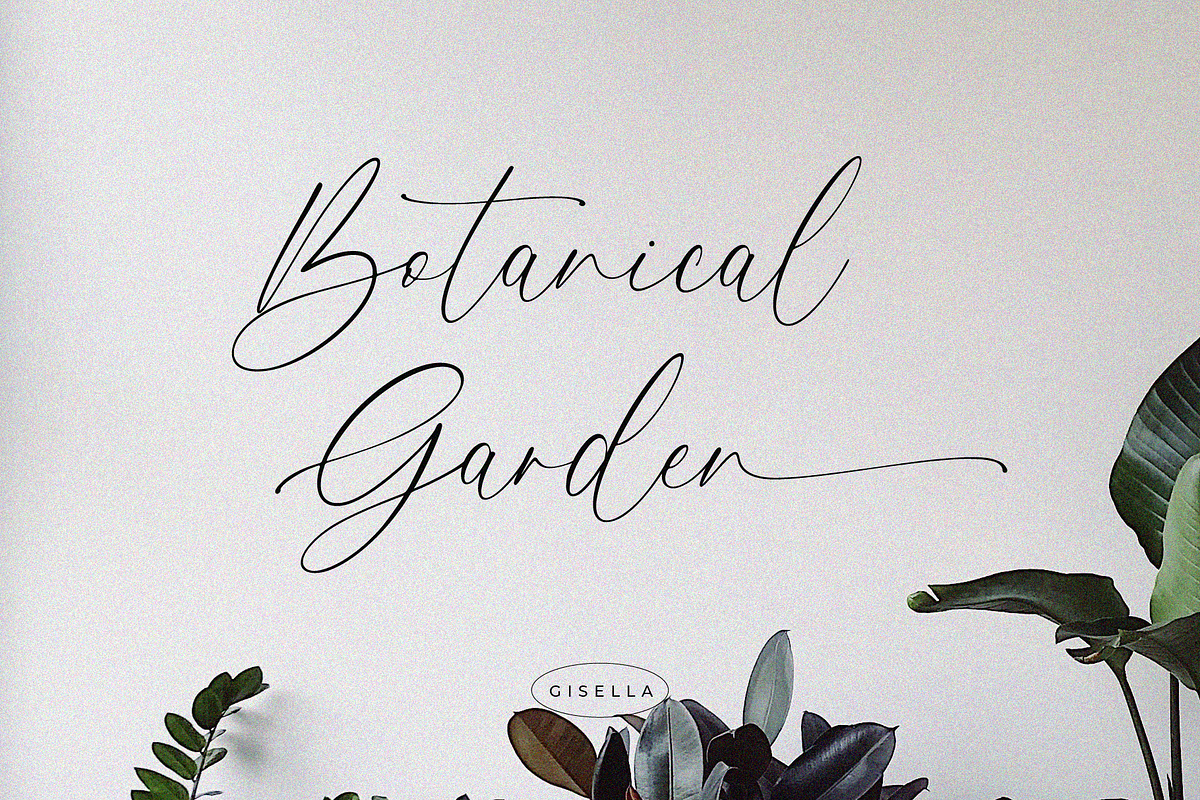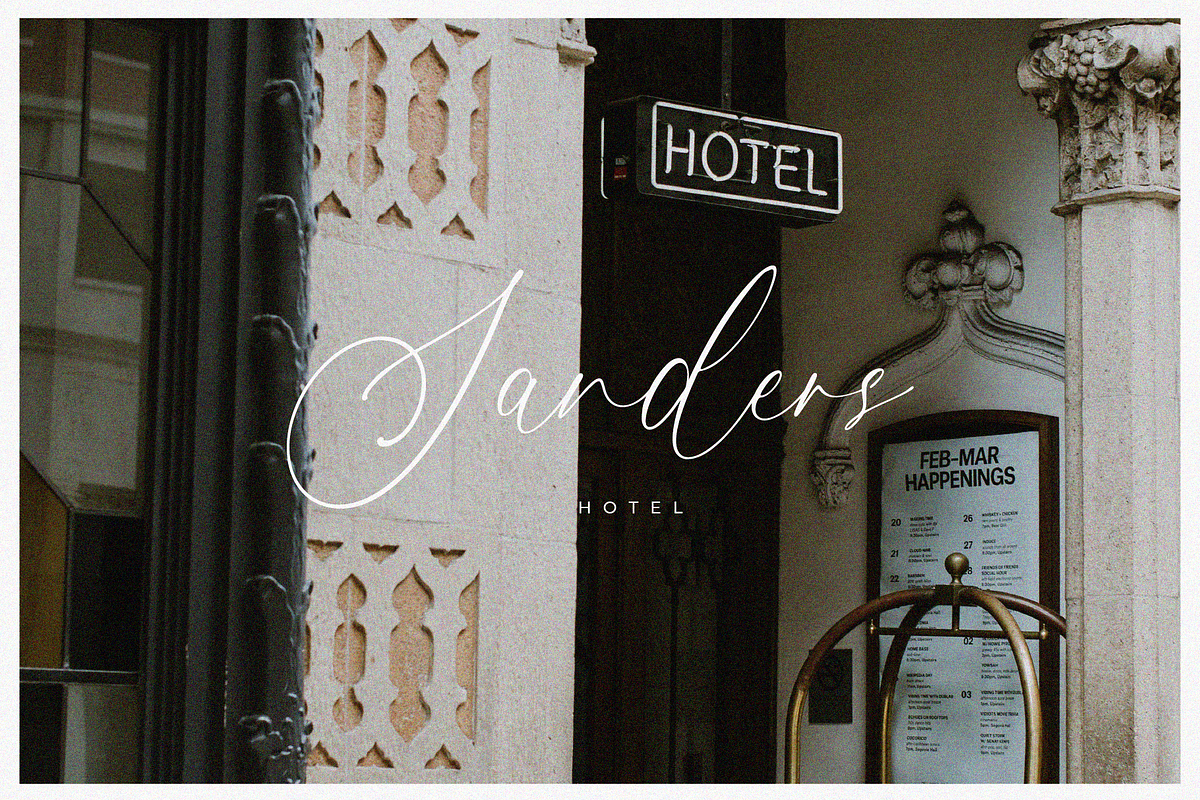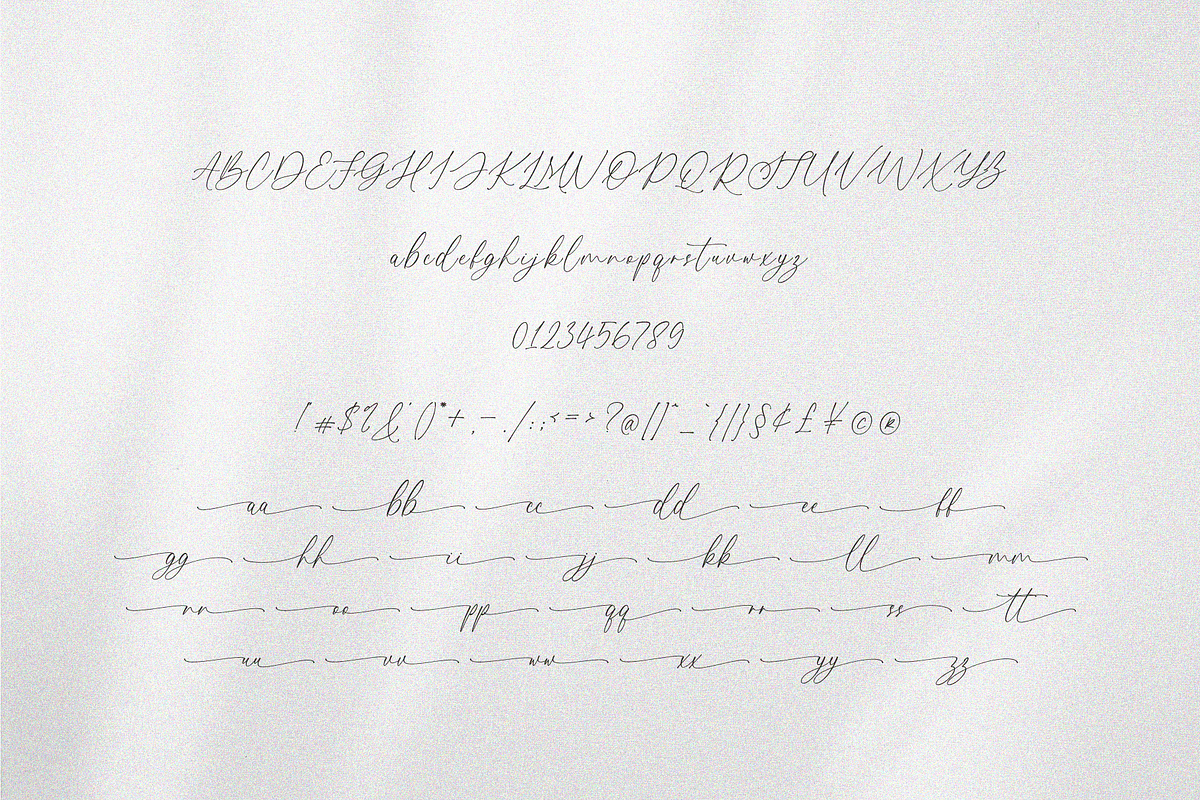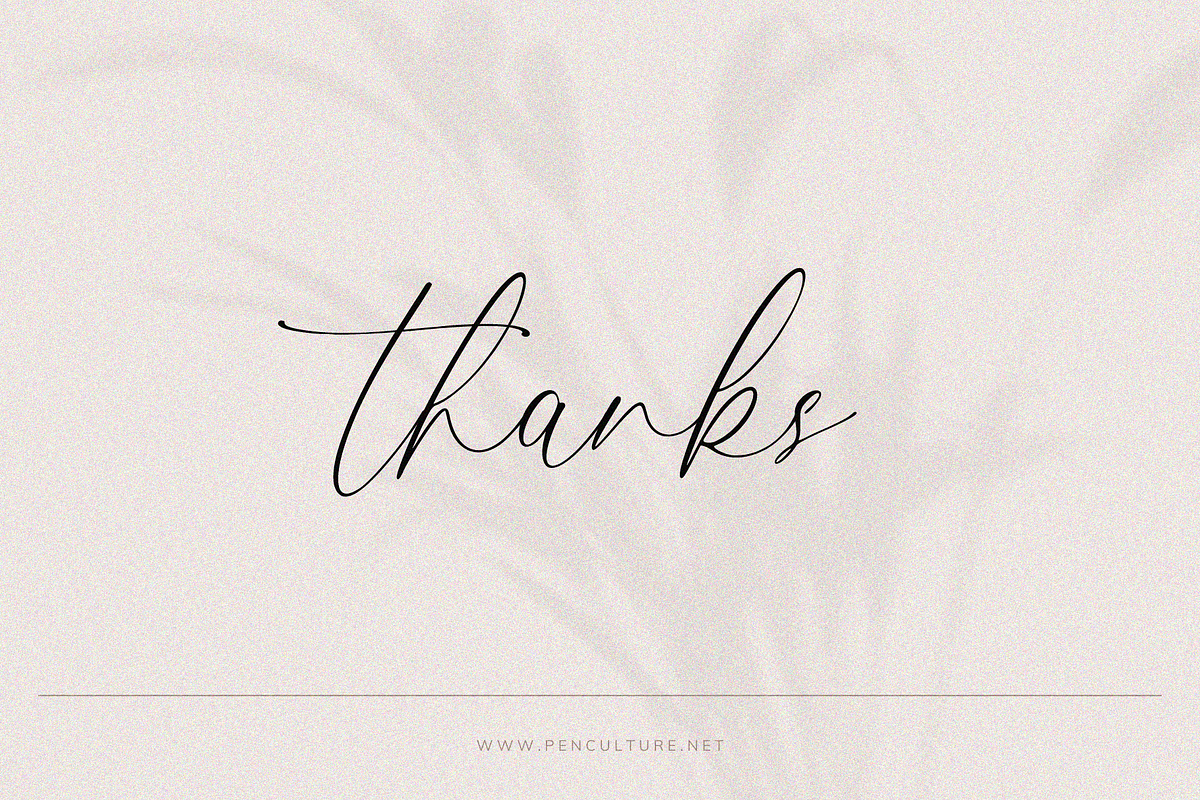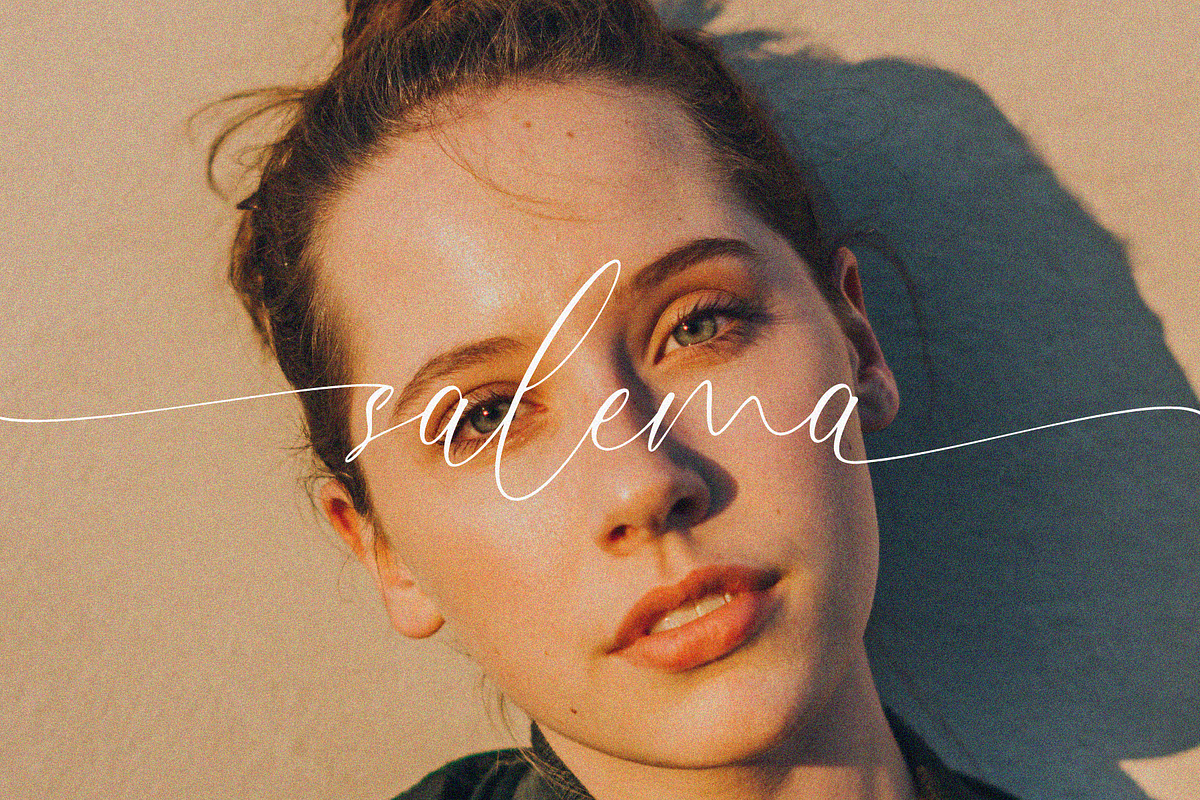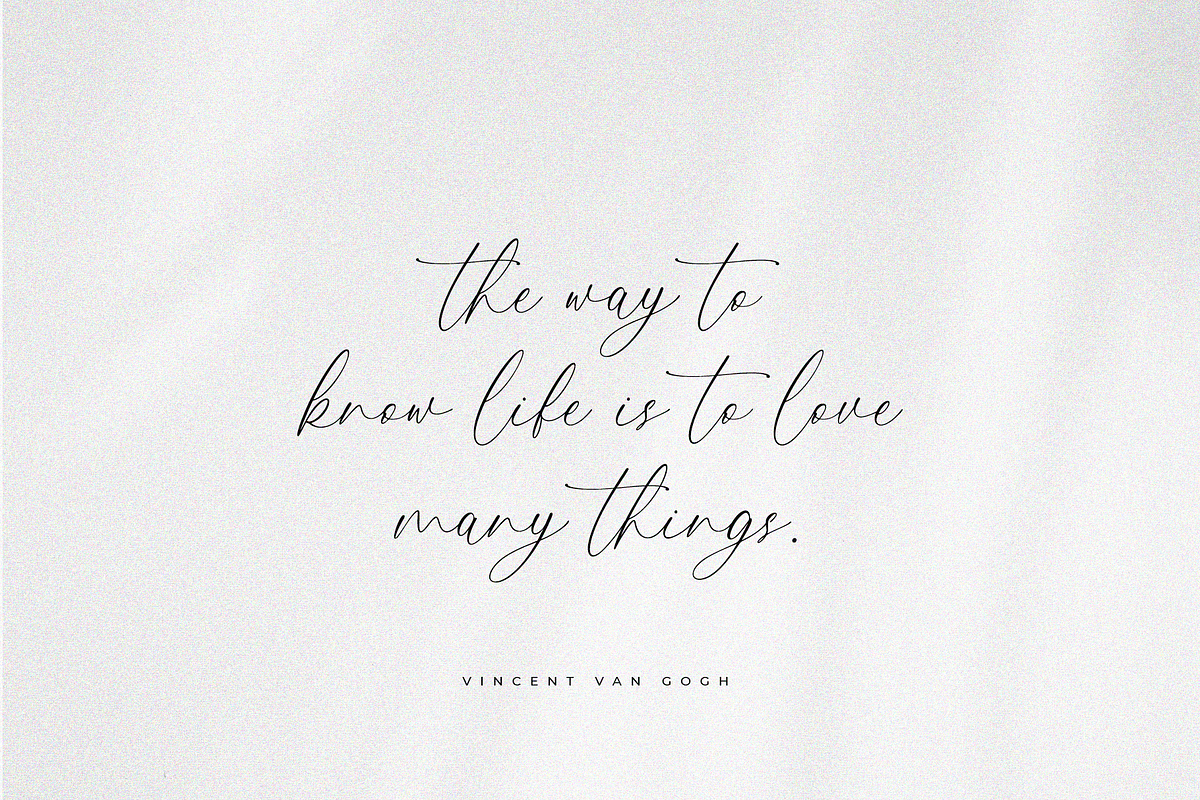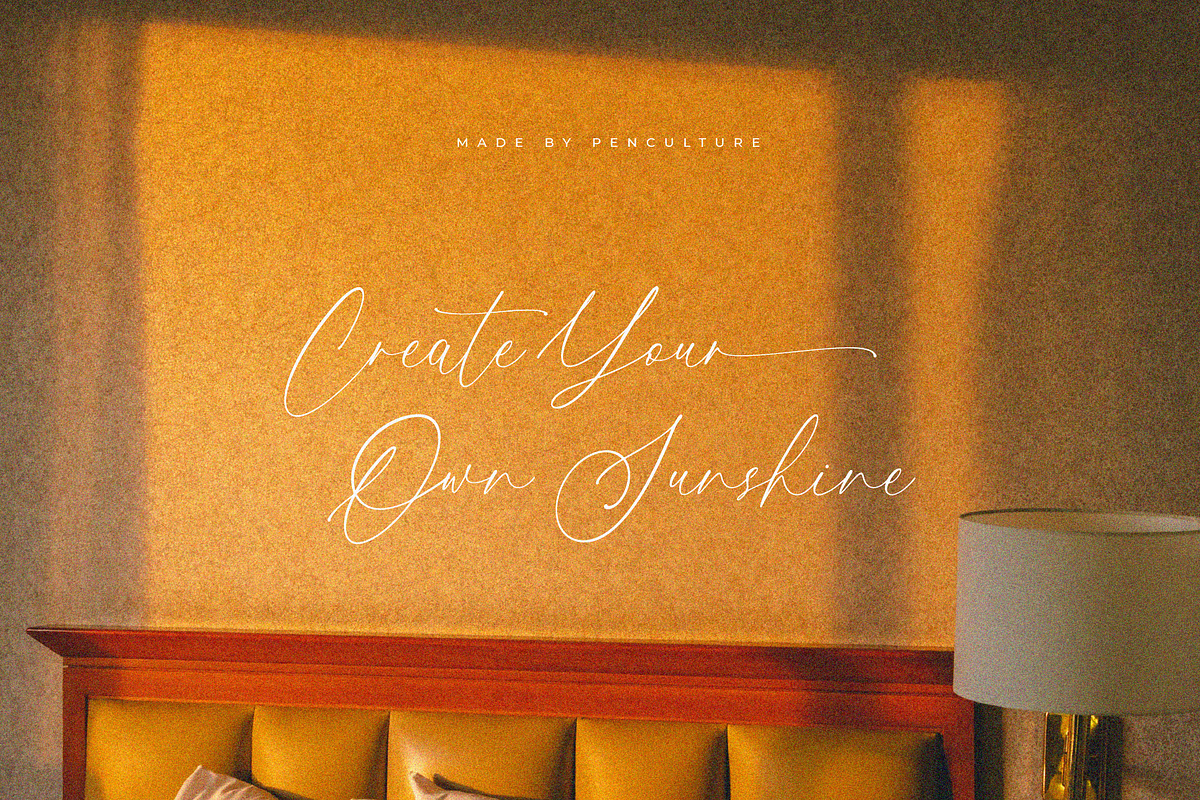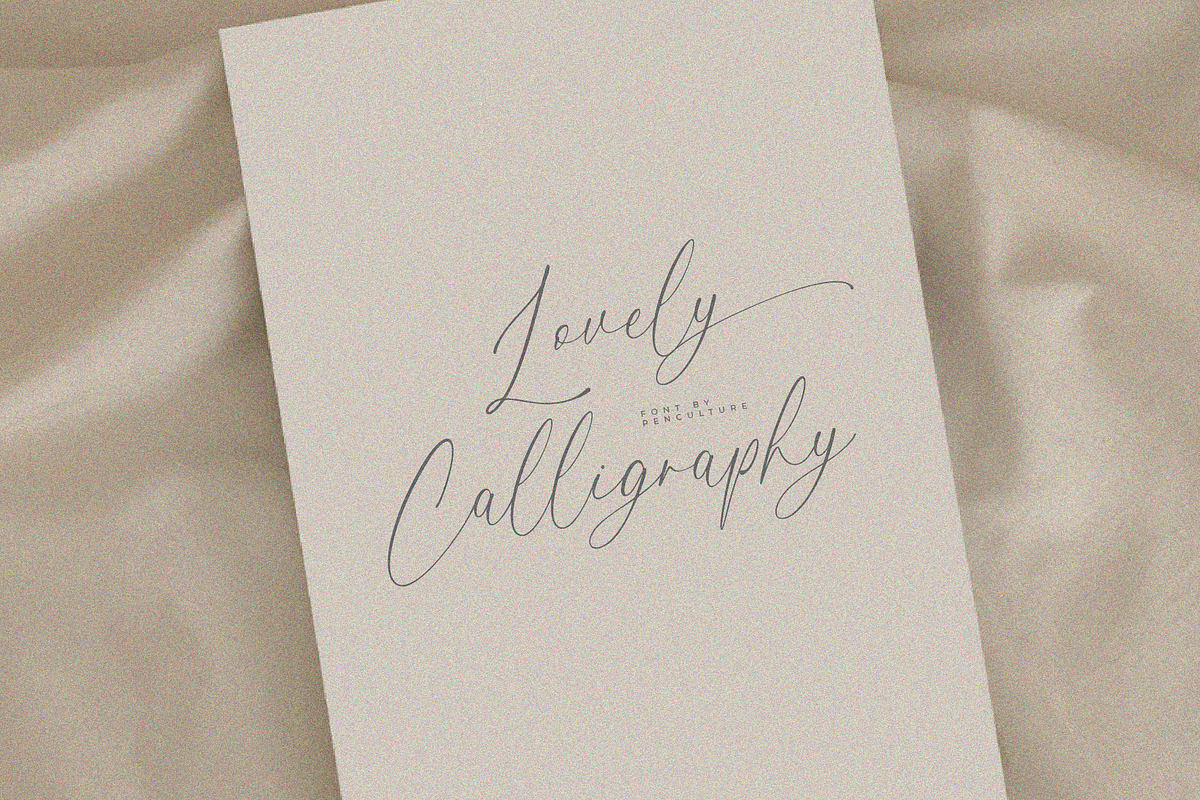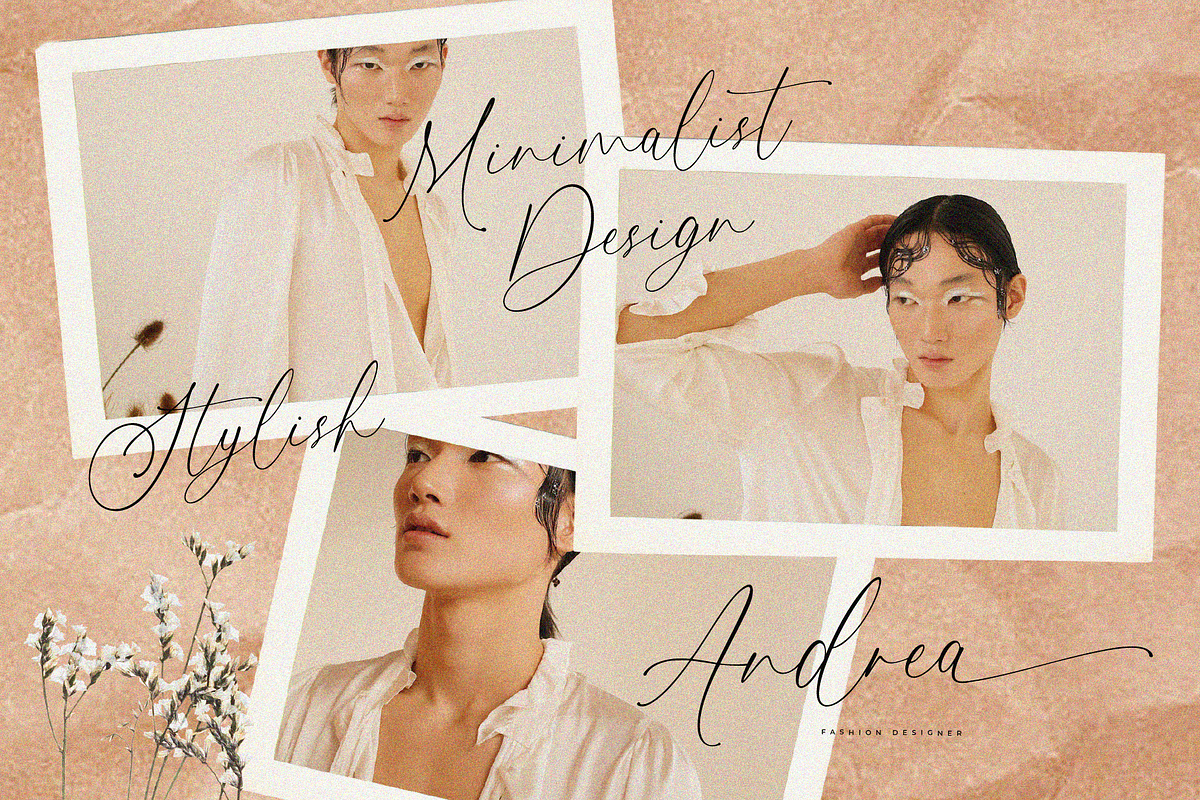
Gisella - Lovely Calligraphy Font
Introducing the new calligraphy font called Gisella
It's a modern calligraphy with lovely touch. This font come with beautiful uppercase and lowercase, number and punctuation, ligature and lovely beginning and ending swash that perfect for branding, logo design, wedding invitation, poster, magazine and many more.